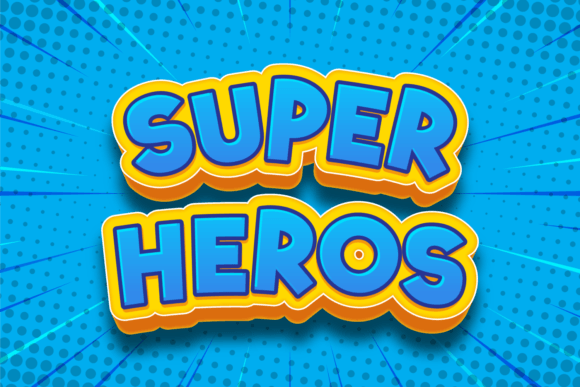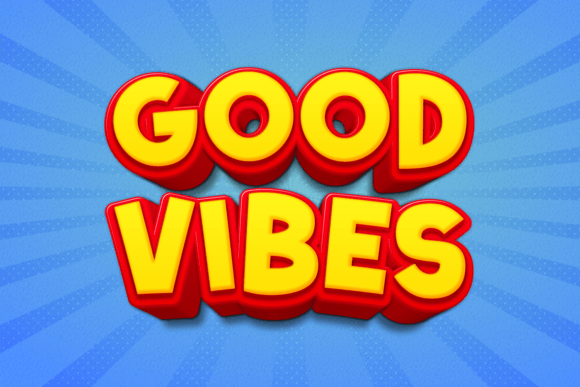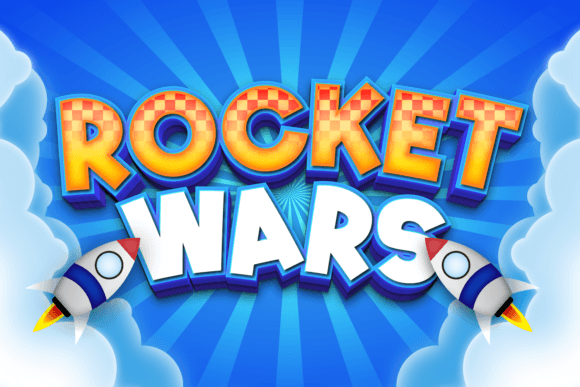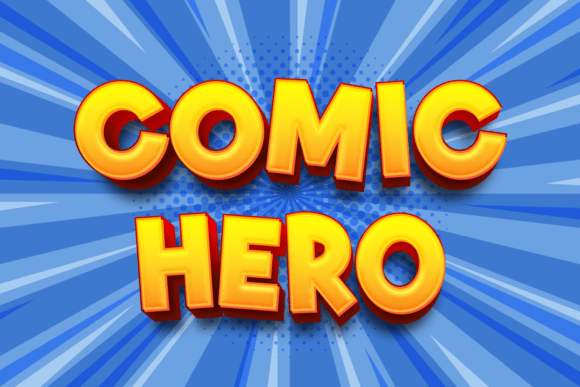
Discover the Playful World of Acta Pack Font
Have you ever been in the middle of a design project, and suddenly, you’re stuck on finding the perfect font? I recall a recent experience where I was working on a children’s book, and my client requested a font that was both playful and thick. After hours of searching, I stumbled upon Acta Pack Font, and it instantly became my go-to choice. In this article, I’ll share my journey with Acta Pack, its features, and how you can make the most of this amazing display font.
An Honest Review of Acta Pack Font
What I Love About Acta Pack Font
• ✨ Unique and Playful Design: Acta Pack Font boasts a thick and playful design that instantly captures attention. Its distinctive style makes it perfect for kid-related projects, t-shirts, and advertising materials.
• ✅ Versatility: This font is incredibly versatile and can be used for various design projects, including product packaging, posters, cards, headlines, and more.
• 💡 Creative Freedom: Acta Pack Font gives you the freedom to let your creativity roam free, allowing you to create truly amazing designs.
While Acta Pack Font is an excellent choice for many design projects, there are a few things to keep in mind:
• ⚠️ Legibility at Small Sizes: Acta Pack Font may not be the best choice for body text or small font sizes, as its thick design can make it difficult to read.
• 🤔 Limited Formality: Due to its playful nature, Acta Pack Font might not be suitable for formal or professional designs, such as business reports or corporate branding.
The Backstory of Acta Pack Font
Acta Pack Font was designed with creativity and playfulness in mind. Its designer aimed to create a font that would inspire designers to think outside the box and push the boundaries of their imagination. With its unique and thick design, Acta Pack Font has become a popular choice for designers looking to add a touch of fun and personality to their projects.
Q: What type of projects is Acta Pack Font best suited for?
A: Acta Pack Font is perfect for kid-related projects, t-shirts, advertising materials, product packaging, posters, cards, headlines, and more.